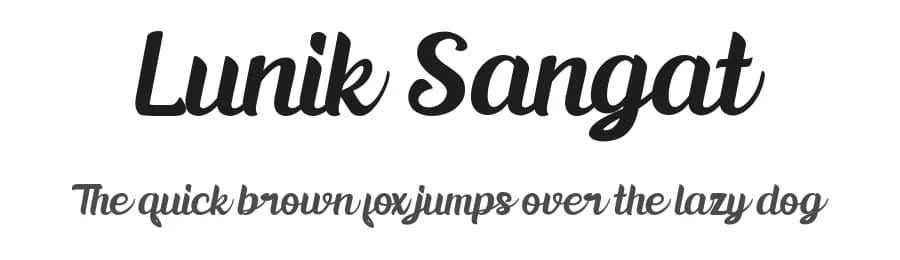
About Lunik Sangat Font
Introducing a new font called Lunik Sangat, the story behind making lunik fonts is very, this font is made with a mixture of cultures in it which is about the word "lunik" which means big and soft. This illustrates the shape and curve of each letter. I specially designed this font to make it suitable for branding, logos, product packaging, labels, & others.
Lunik Sangat Font is a script font that shines as a display or heading face. Pair it with a clean sans-serif or serif font for body text β the contrast creates a clear hierarchy while the two styles stay balanced and easy to read.
Lunik Sangat Font